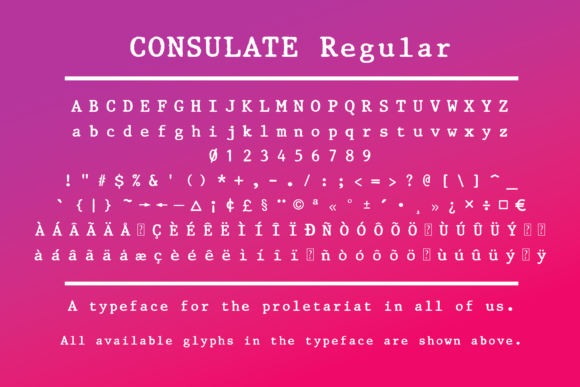
The Consulate Font: A Bold Choice for the Modern Creative
I still remember the design project that led me to discover the Consulate Font. I was working on a branding project for a local business, and I needed a font that would evoke a sense of nostalgia and authority. After hours of scouring font libraries and testing different typefaces, I stumbled upon Consulate Font. Its bold, Soviet-era-inspired design immediately caught my attention, and I knew I had found the perfect fit.
So, what do I love about Consulate Font? Here are a few things that make it stand out:
• Unique aesthetic: Consulate Font has a distinctive look that sets it apart from other typefaces. Its bold, geometric shapes and Soviet-era inspiration make it perfect for designs that need a touch of nostalgia or authority.
• Legibility: Despite its bold design, Consulate Font is surprisingly legible, even at smaller point sizes. This makes it a great choice for body text or headings.
• OpenType features: Consulate Font supports OpenType features, including glyphs and stylistic alternates. This allows for a high degree of customization and flexibility.
Of course, no font is perfect, and Consulate Font has a few quirks:
• 🤔 Limited font styles: Consulate Font is currently only available in a few font styles, which may limit its versatility in certain design projects.
• ⚠️ Not suitable for all audiences: The font’s bold, Soviet-era design may not be suitable for all audiences or design projects. It’s essential to consider the tone and message you want to convey before using Consulate Font.
The Backstory of Consulate Font
Consulate Font was designed with the goal of evoking the Soviet era of the Cold War. The font’s creator wanted to capture the essence of a bygone era, with its bold, geometric shapes and authoritative presence. The result is a font that is both nostalgic and timeless.
What is the inspiration behind Consulate Font? The font was inspired by the Soviet era of the Cold War, with its bold, geometric shapes and authoritative presence.
Is Consulate Font suitable for body text? Yes, Consulate Font is surprisingly legible, even at smaller point sizes, making it suitable for body text.
Does Consulate Font support OpenType features? Yes, Consulate Font supports OpenType features, including glyphs and stylistic alternates.